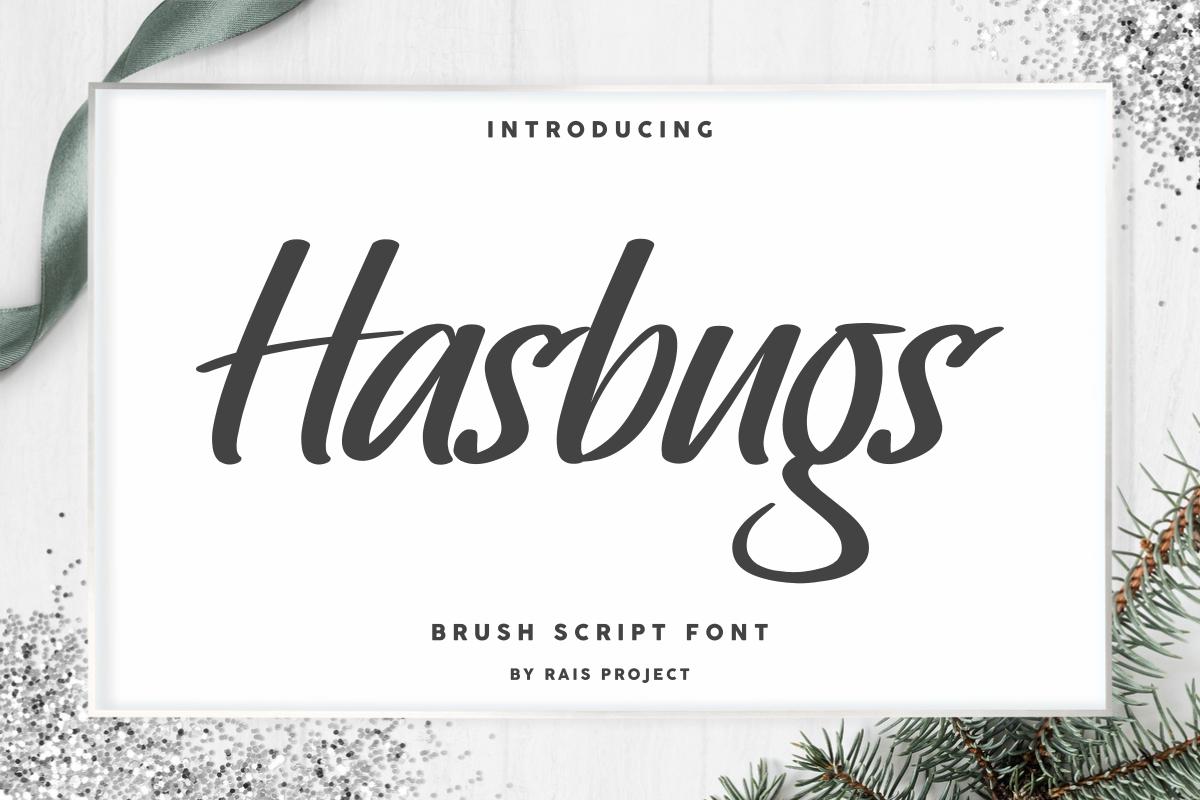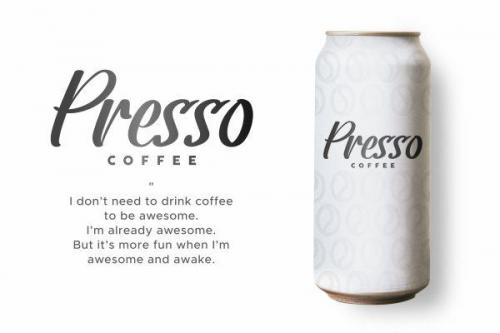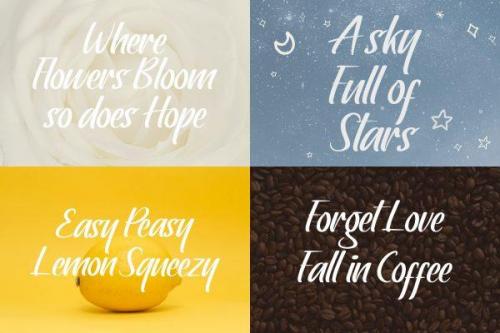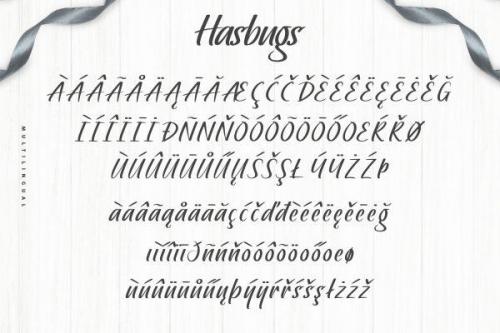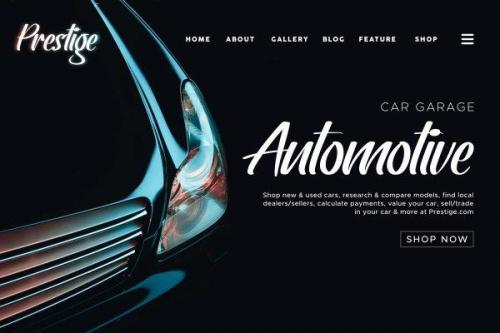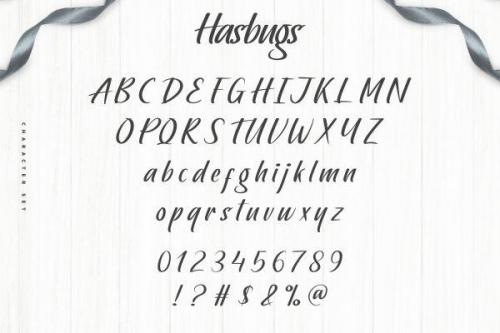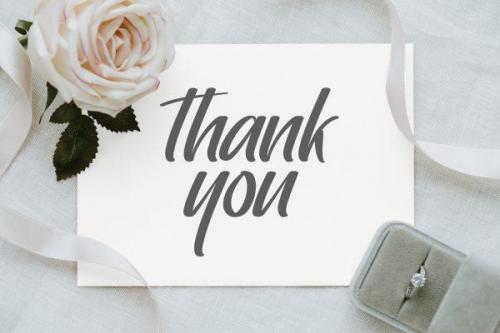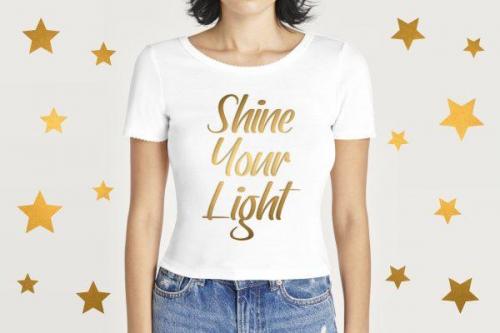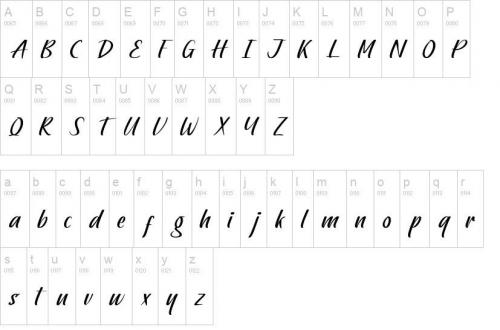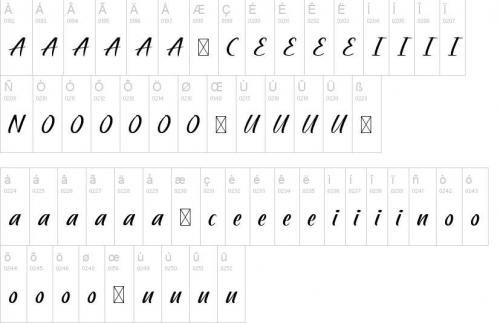
Hasbugs Font is a brush display font, designed by Rais Project. It is a great brush display font with exclusive style that is great for Movie, Game, Magazine, Music, Video, Sports, Racing etc